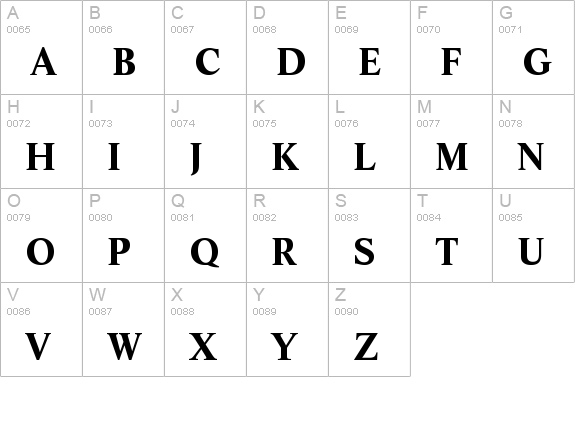
LifeEF-Bold Font Details
LifeEF-Bold is a strong, high-contrast variant in the LifeEF typeface family \xE2\x80\x94 well suited to headlines, attention-grabbing titles, and strong calls-to-action.
LifeEF-Bold font is a sleek and modern typeface that exudes confidence and elegance. With its bold and impactful characters, this font is perfect for creating eye-catching headlines, titles, and designs that command attention. Its clean lines and sharp edges give it a contemporary feel that is both timeless and versatile. Perfect for a wide range of design projects, LifeEF-Bold font is designed to stand out and make a statement. Whether you're working on branding materials, posters, websites, or any other creative project, this font will add a touch of sophistication and style. Best of all, LifeEF-Bold font is available for free download at FontsMarket.com, making it easily accessible for anyone looking to enhance their designs with a modern and distinctive typeface. Don't miss out on the opportunity to elevate your projects with this amazing font that is both bold and beautiful. Download LifeEF-Bold today and let your creativity shine!